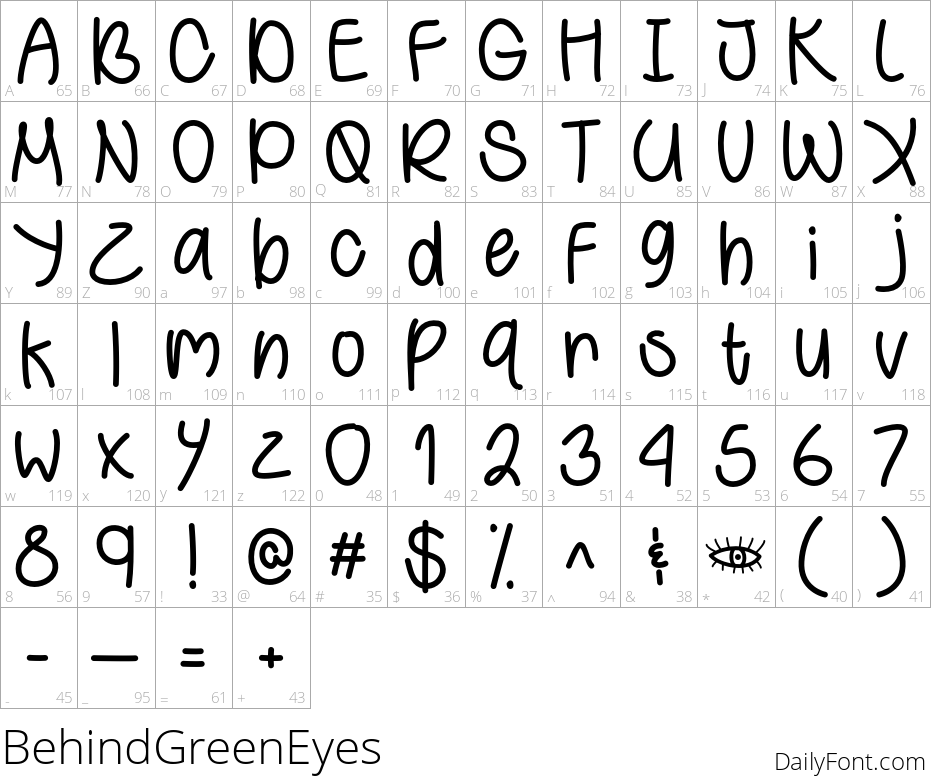
Behind Green Eyes
Unique Symbol-Based Font with Whimsical Touch
Are you seeking a font that adds an extra layer of creativity to your designs? Look no further than this imaginative typeface, which combines playful symbols and whimsical flair. Perfect for crafting unique visual identities, this font is ideal for designers, writers, and makers who crave something out of the ordinary.
Key Features:
- Whimsical design featuring custom-made symbols
- Includes special characters for creating eye-catching eyes (type * to access)
- Versatile for use in various projects, from artistic typography to editorial content
- Perfect for those seeking a font that stands out from the crowd
Whether you're looking to add a dash of personality to your designs or create something truly one-of-a-kind, this font is sure to delight. Its unique blend of symbols and typographic flair makes it an excellent choice for anyone seeking a distinctive visual voice.